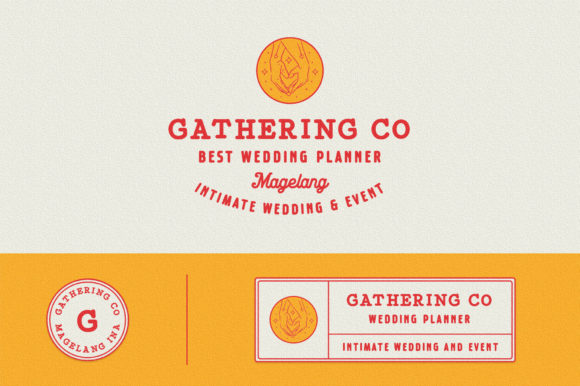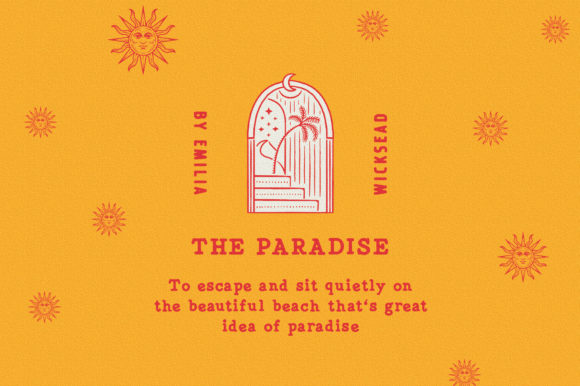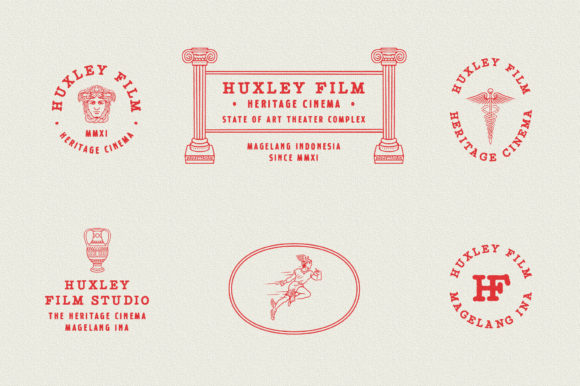
Introduction to Mistage Font
Mistage is a cool and vintage styled duo font (display and dingbats).
Whatever the topic, this font will be a wonderful asset to your font library, as it has the potential to enhance any creation .
Key Features of Mistage Font
Why Choose Mistage Font?
Mistage Font offers exceptional quality and versatility, making it a valuable addition to your design toolkit. Whether you’re creating for personal projects or commercial use, Mistage Font delivers professional results.